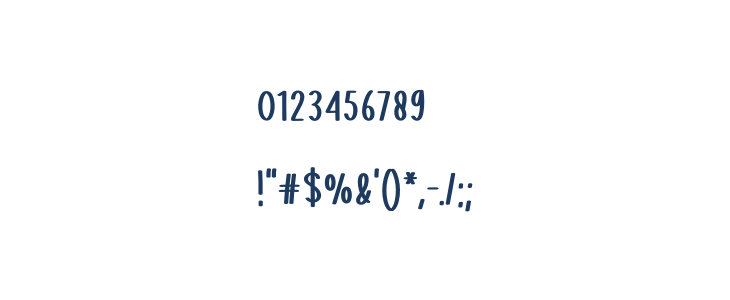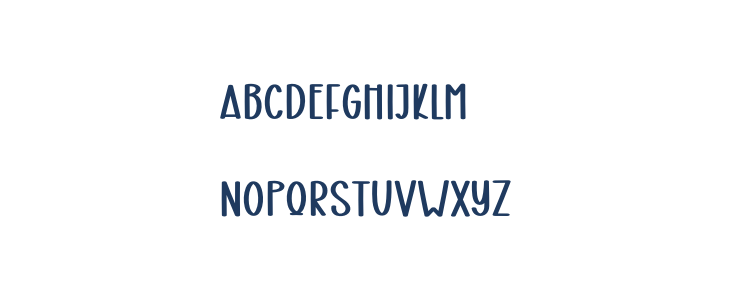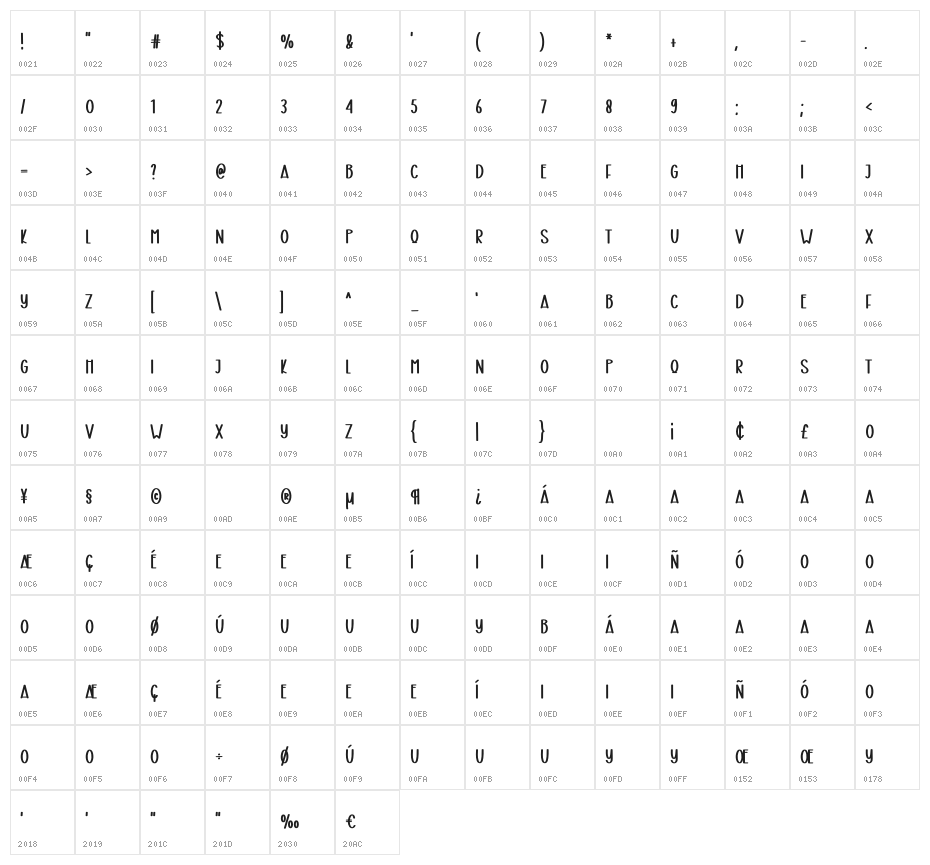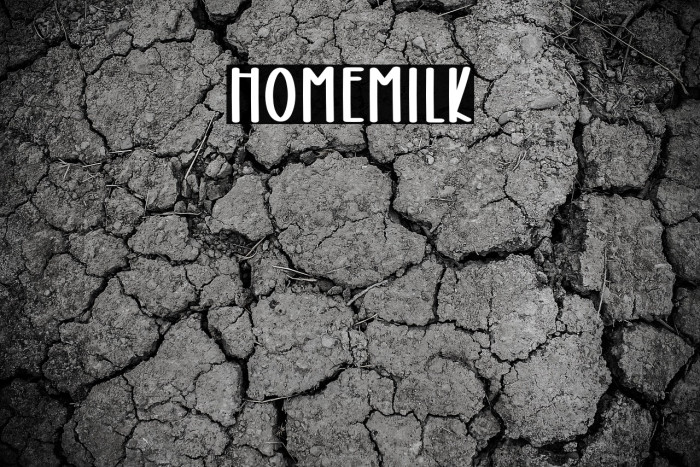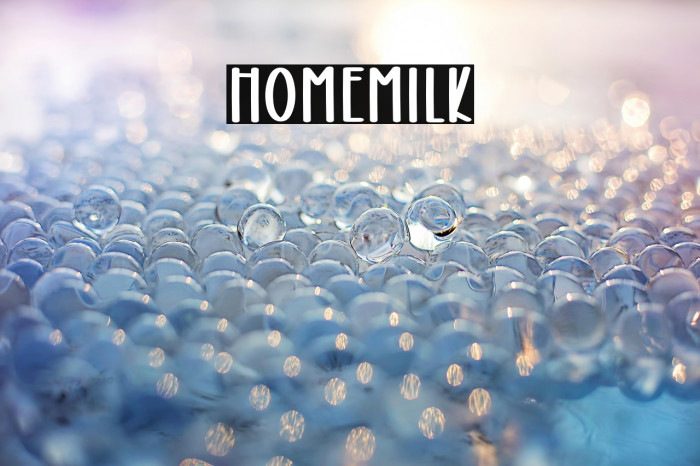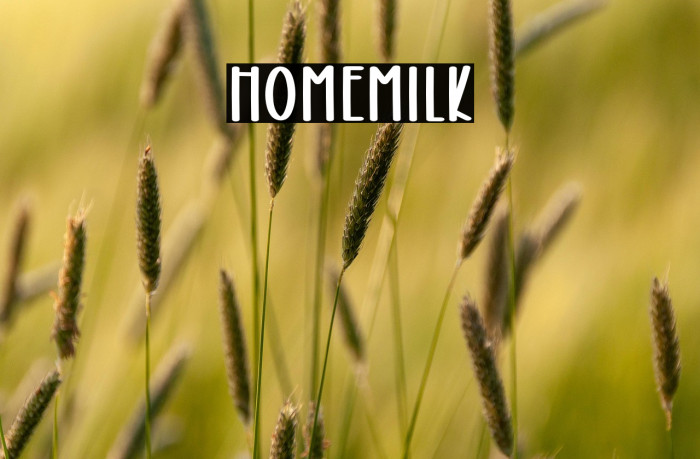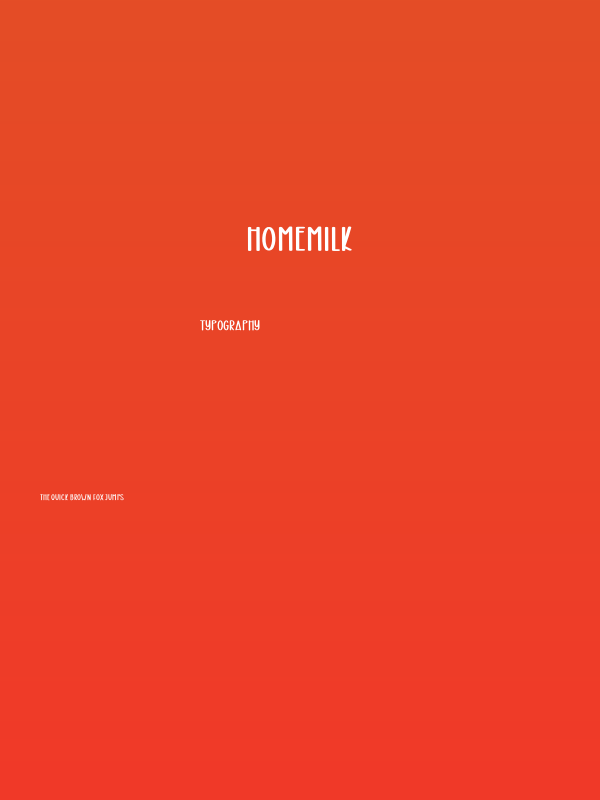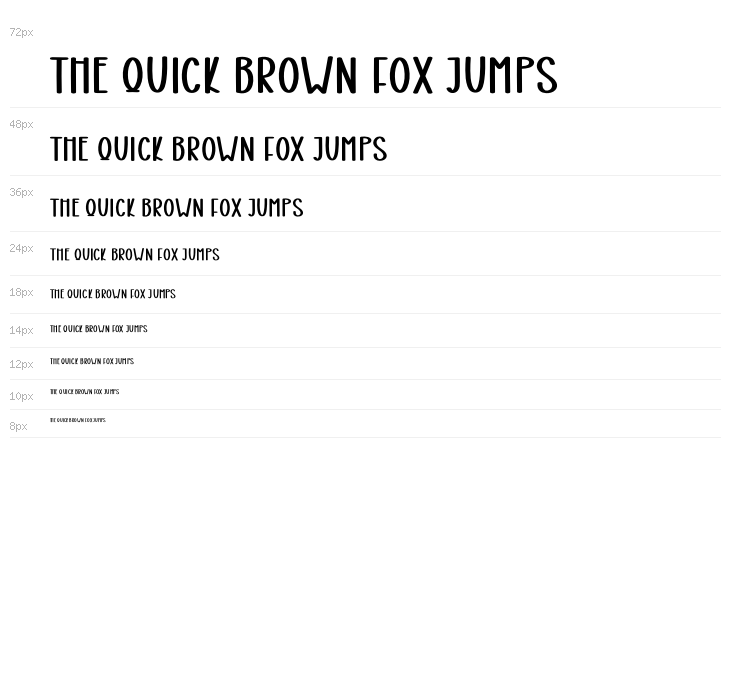
Homemilk Font
Homemilk Description
A playful, rounded sans-serif font with a hand-drawn, casual appearance. The letterforms are slightly irregular, giving it a friendly and approachable feel. The strokes are consistent in thickness, and the spacing is even, making it easy to read while maintaining a whimsical character.
| Overall Style | Handwritten, Playful, Casual |
| Use Case | Headlines, Logos, Posters, Informal branding |
| Proposed Projects | Children's books, greeting cards, posters, branding for playful or informal products, social media graphics. |